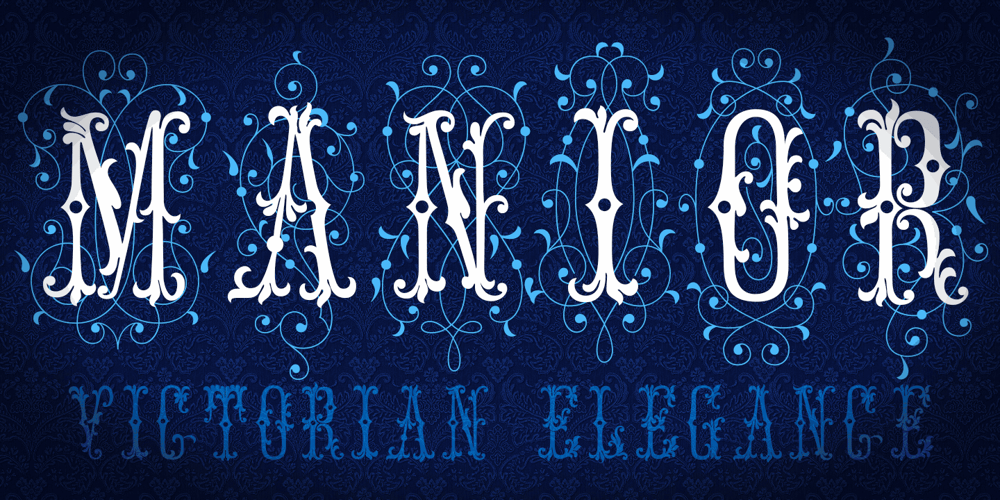
MFC Manoir Monogram Font Family was designed by Brian J. Bonislawsky and published by Monogram Fonts Co.. MFC Manoir Monogram contains 18 styles and family package options. The source of inspiration for Manoir Monogram is a distinguishingly narrow Victorian initial letterset adorned with flourishes from a vintage embroidery publication. This digital revival splits the letterset from its flourished background to give you more design flexibility. Manoir is a highly ornate typestyle with a lot of elegance and flair. MFC Manoir Monogram has uppercase and smallcap letters that support one, two, and three letter monograms of an antiquated Victorian style, allowing colorizing of type and flourish elements separately. Download and view the MFC Manoir Monogram Guidebook if you would like to learn a little more. Manoir Monogram comes complete with both Pro and Standard format fonts. For those with programs that can take advantage of OpenType features, the Pro fonts are for you, but for others without the ability to use OpenType features, we’ve created separate fonts that make up the styles contained in the Pro font.